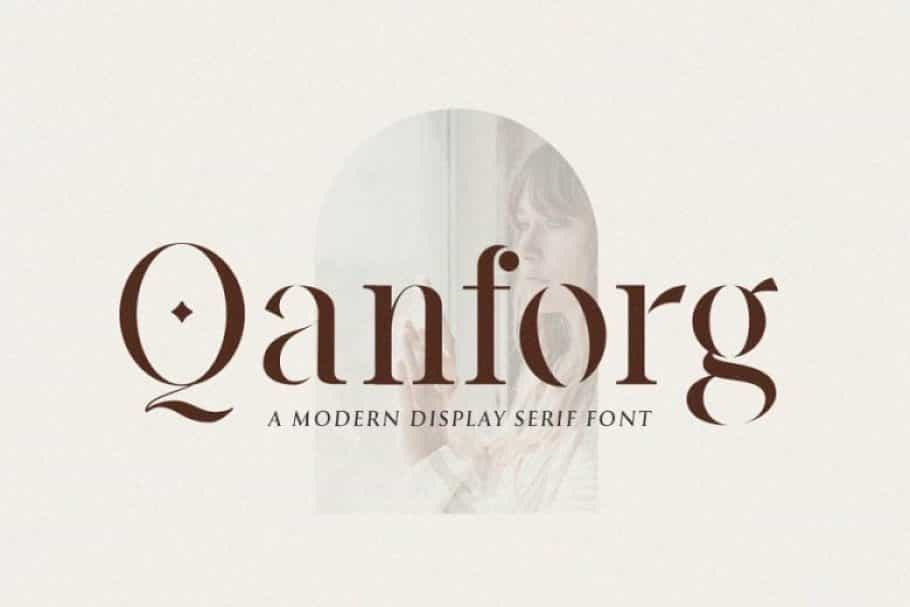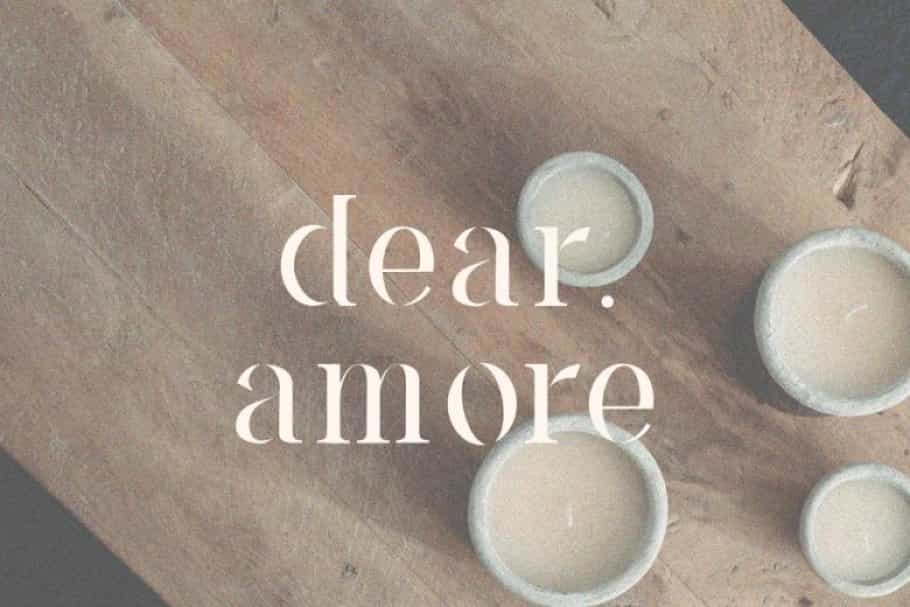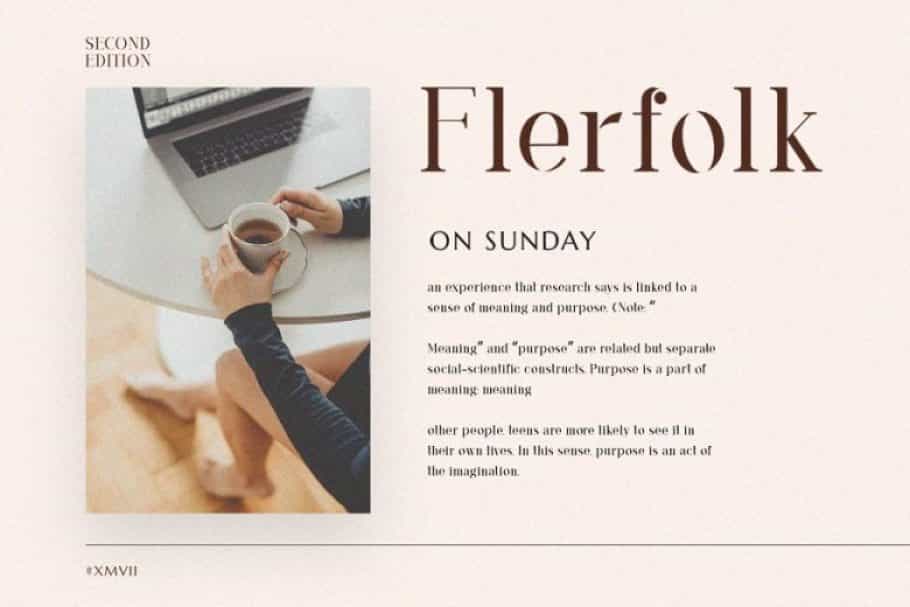
Qanforg is a modern serif font with traditional look and minimalistic design, with detailed shapes and unique forms that will make it perfect for logos, titles and wedding related projects.